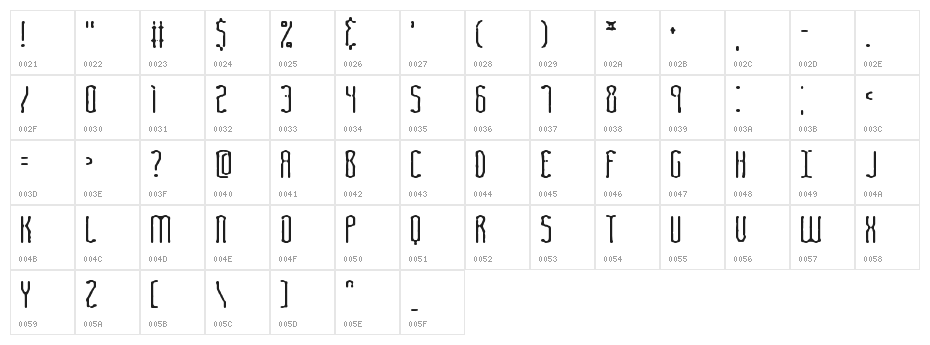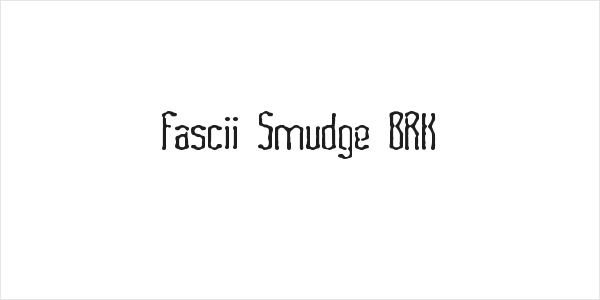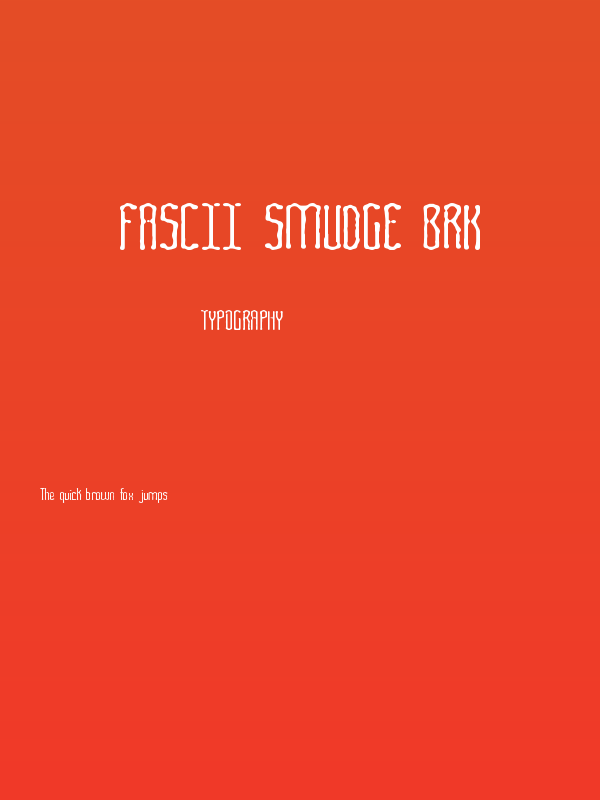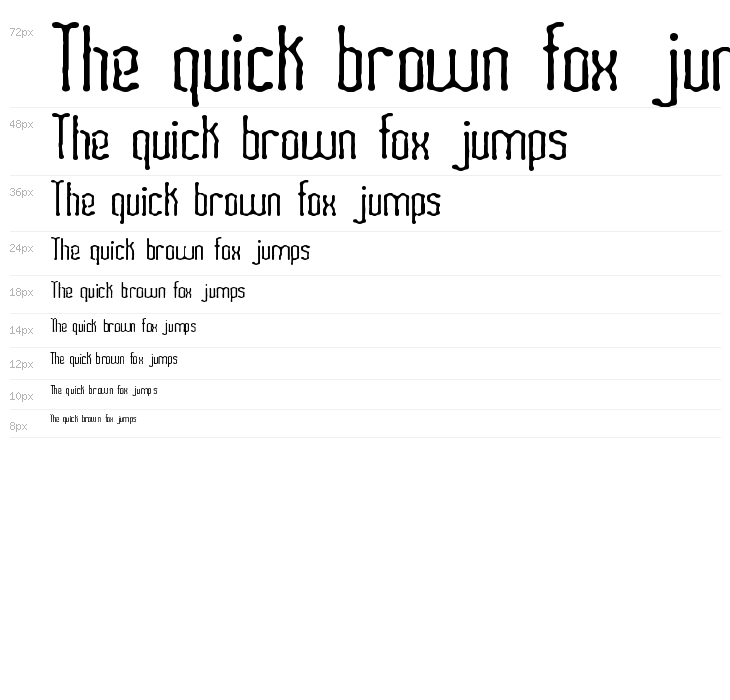
Fascii Smudge BRK Font
Fascii Smudge BRK Description
This font features a unique, smudged appearance that gives it a distinct, organic feel. The characters are elongated and slightly irregular, with a hand-drawn quality that suggests movement and fluidity. The uppercase and lowercase letters maintain a consistent style, with the uppercase being slightly taller and more pronounced. Numbers and special characters follow the same design principles, ensuring a cohesive look across all text. The font's playful and artistic style makes it stand out, offering a creative edge to any project.
| Use Case | Logos, Posters, Creative Branding |
| Proposed Projects | Ideal for artistic projects, creative branding, posters, and any design requiring a unique, hand-crafted look. |